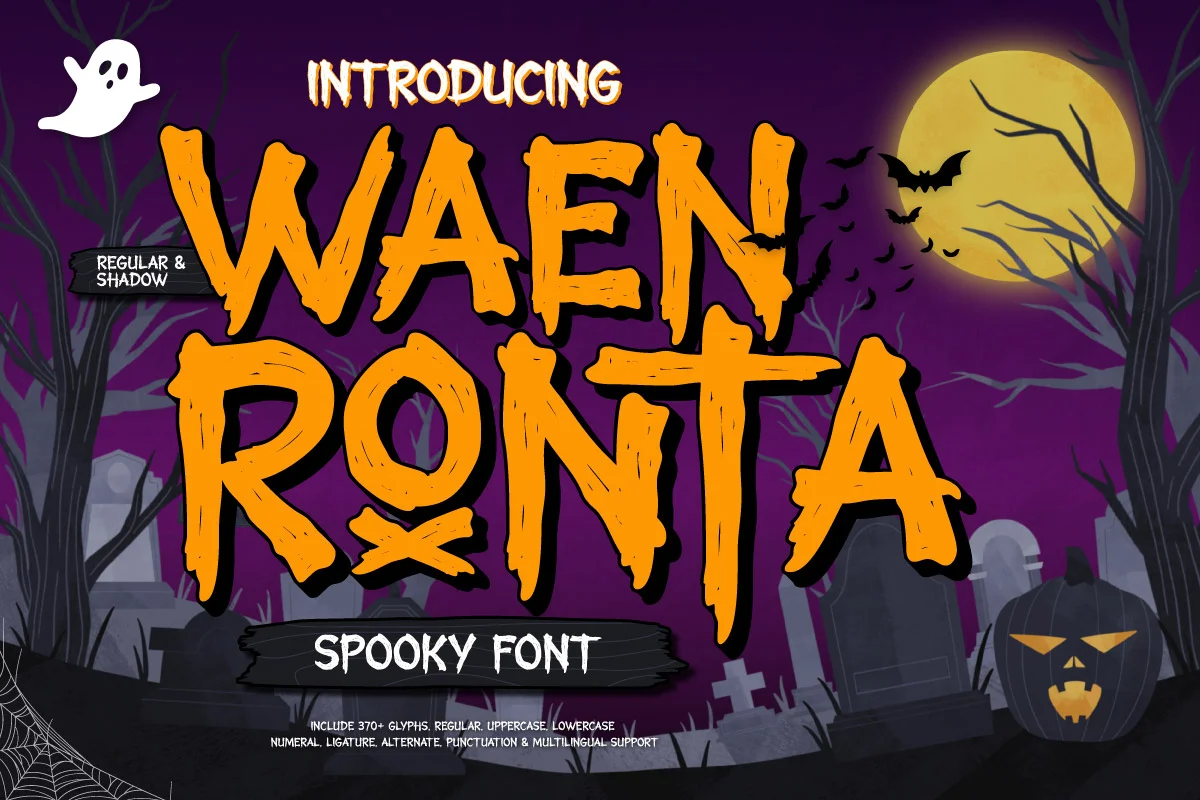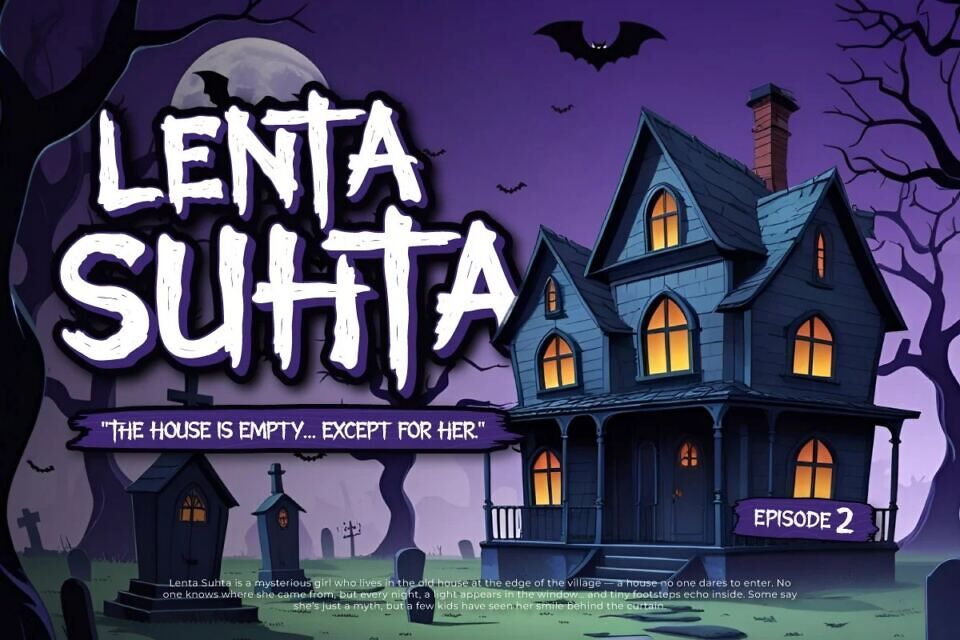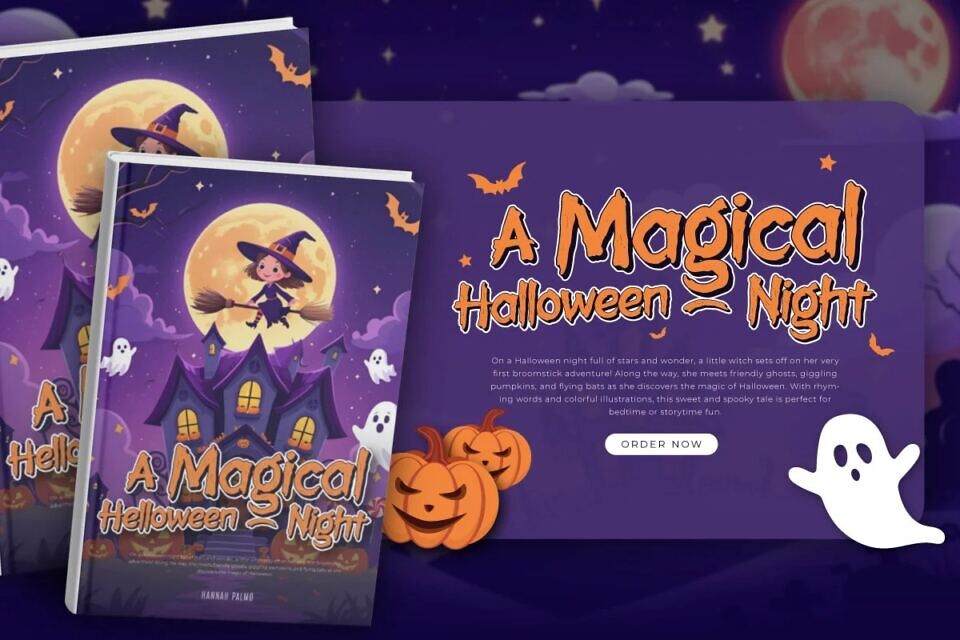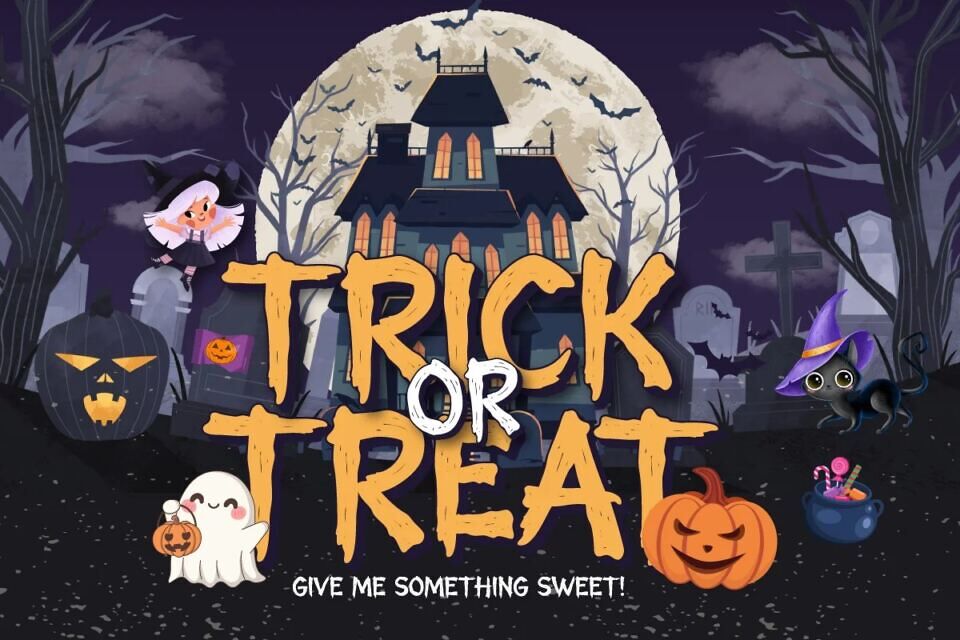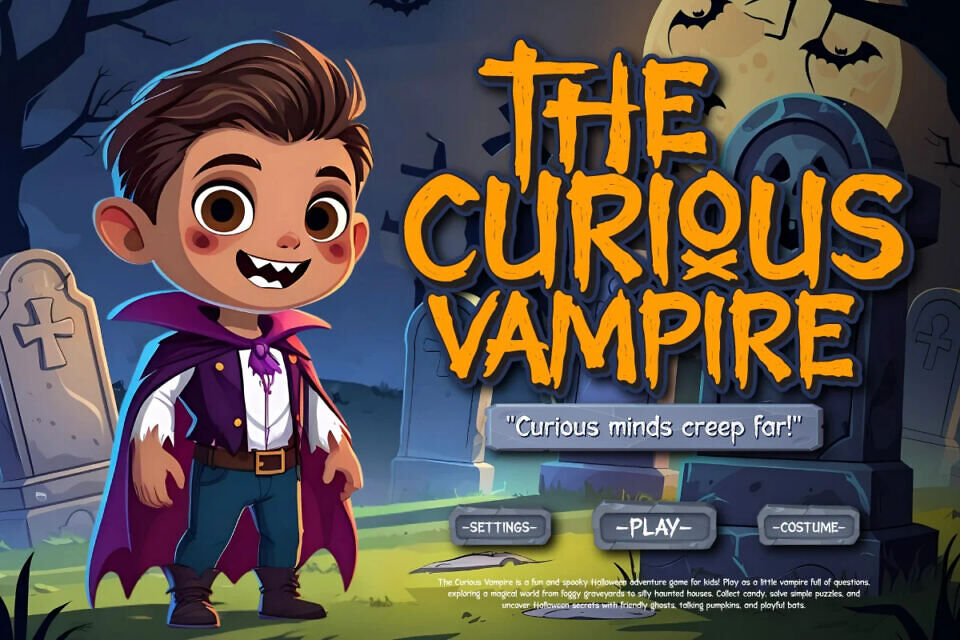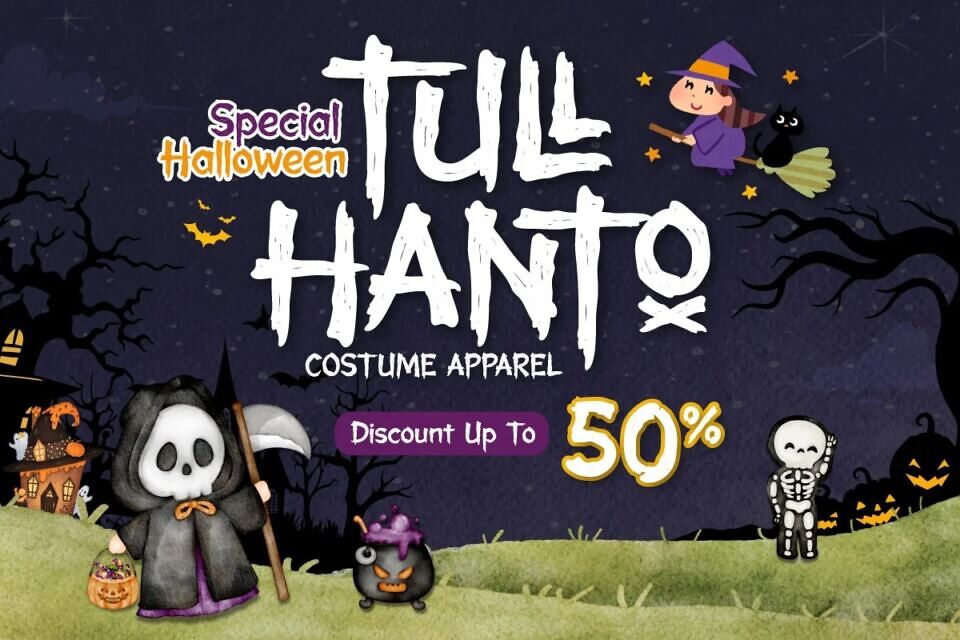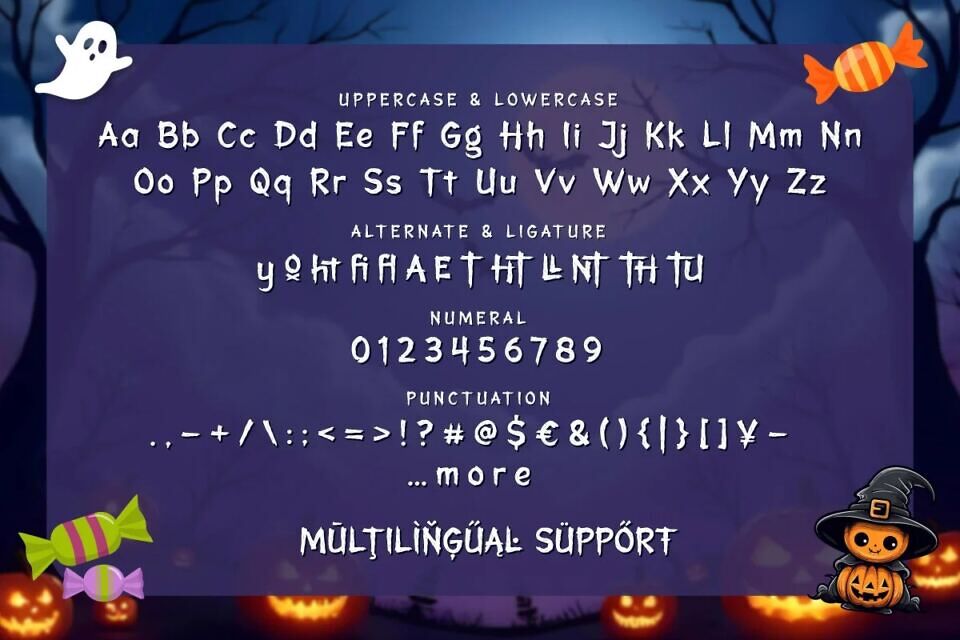
Waen Ronta is a spine-chilling spooky display font designed to send shivers down your spine! Featuring two haunting styles—Regular and Shadow—this font is perfect for Halloween themes, horror movie titles, eerie invitations, scary storybooks, and creepy branding materials.
With sharp strokes and unsettling curves, each character in Waen Ronta captures a sense of dread and suspense. The Shadow style adds a ghostly depth, making your text appear to lurk off the page—just like something creeping in the dark. Whether you’re designing for haunted houses, thriller posters, or anything delightfully dark, Waen Ronta delivers the perfect eerie atmosphere.